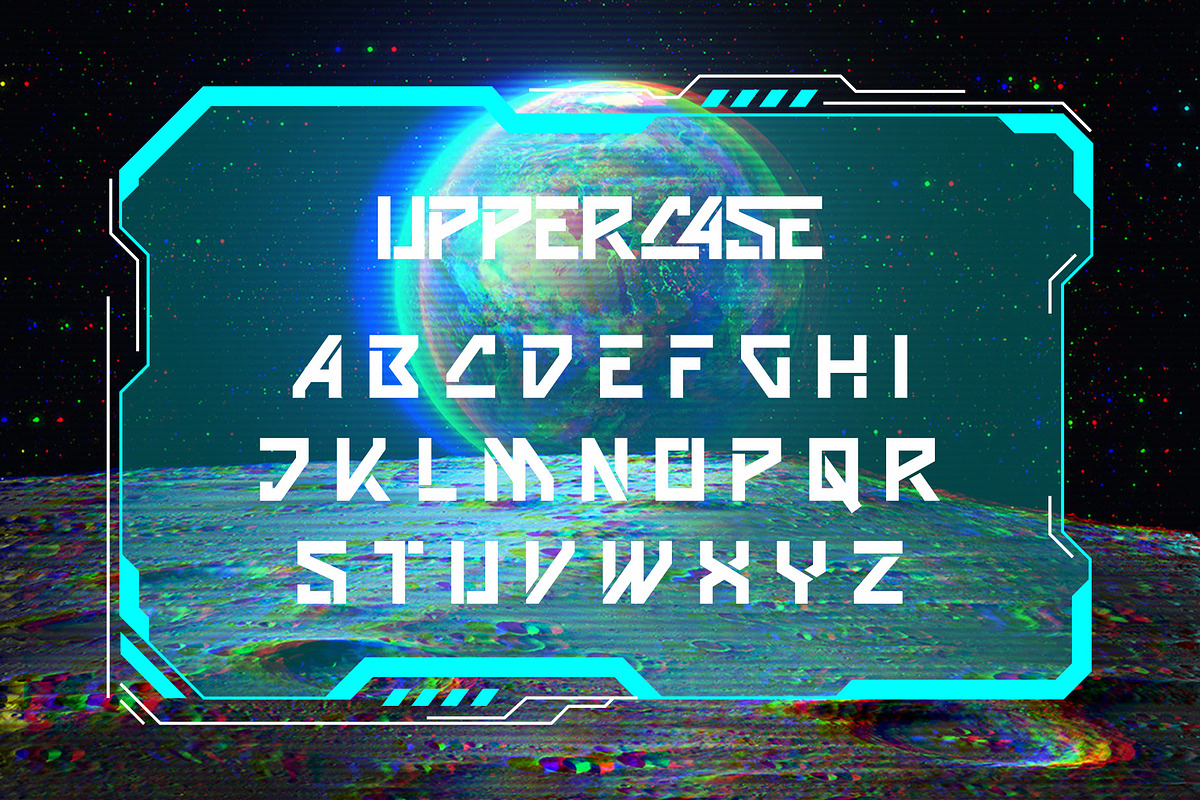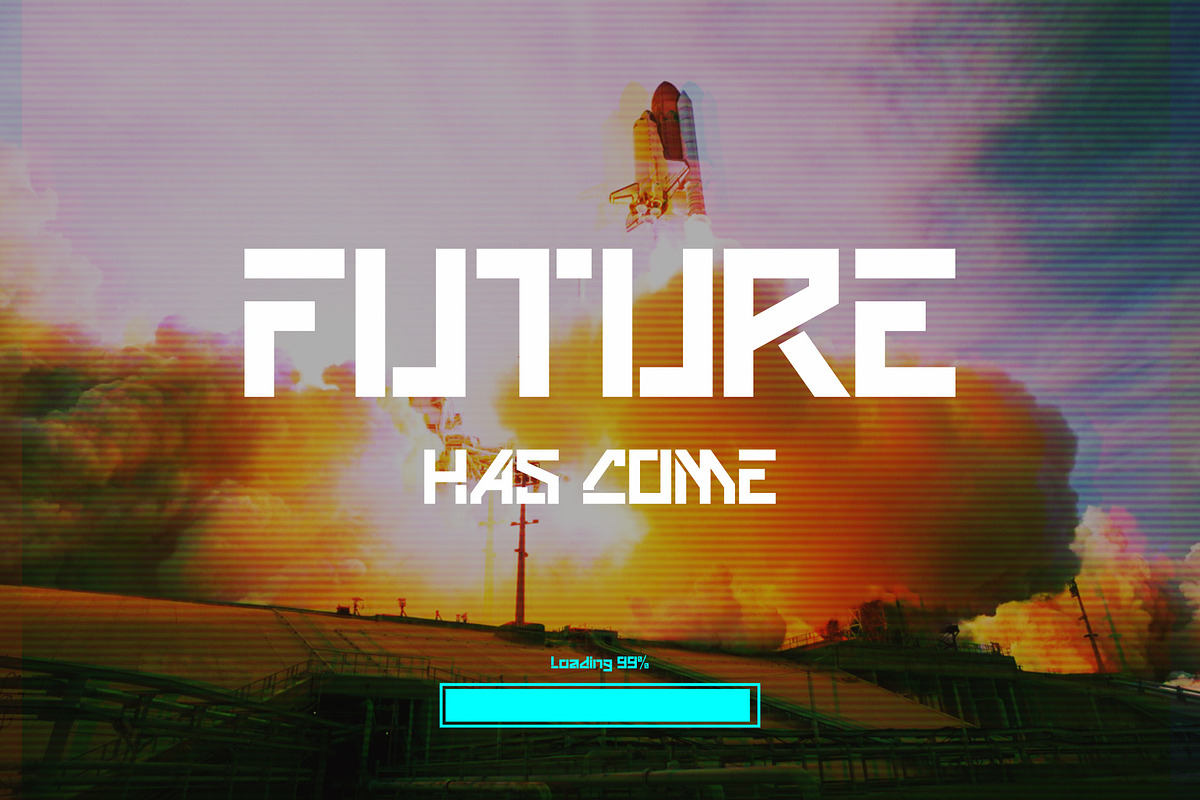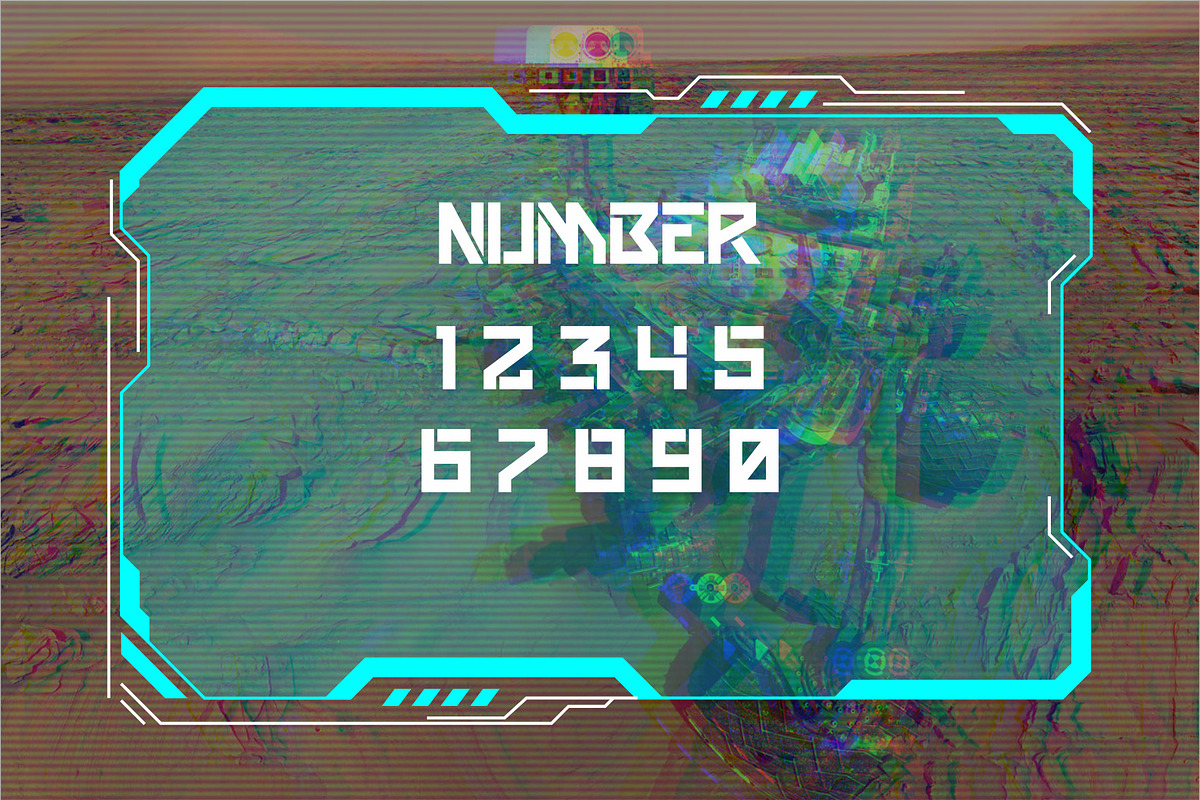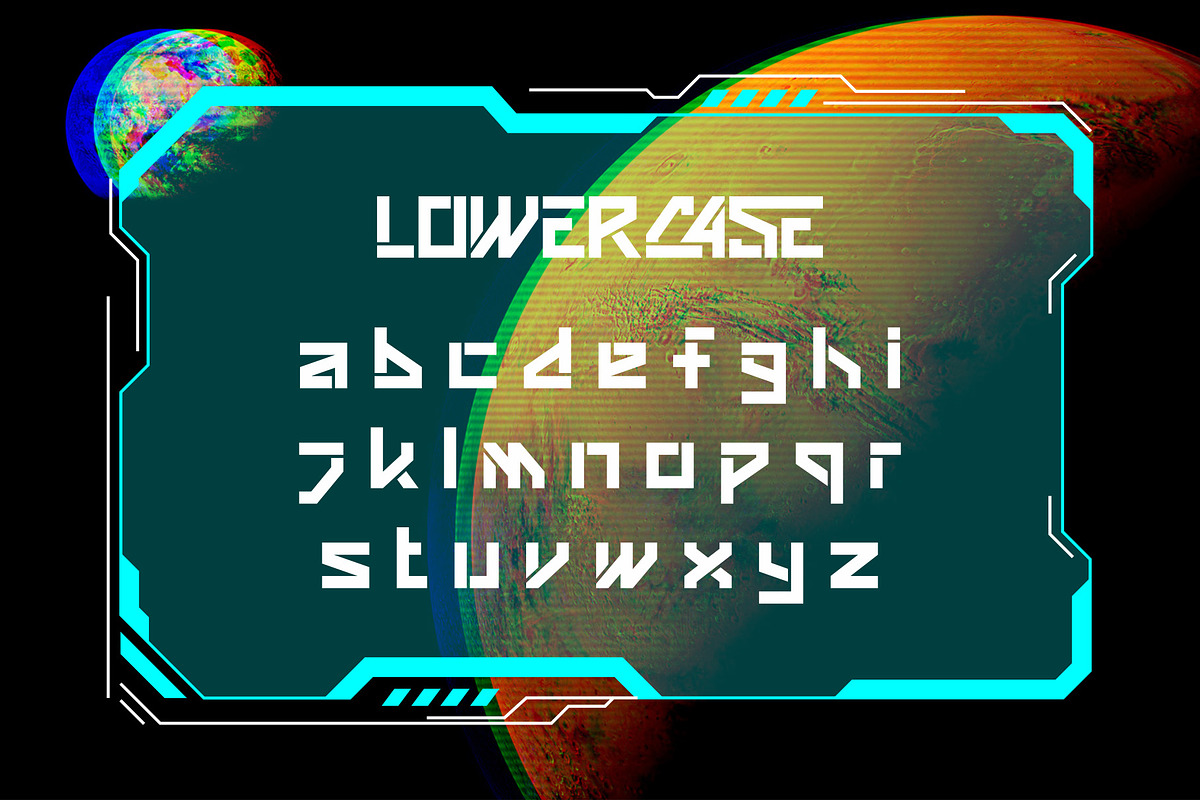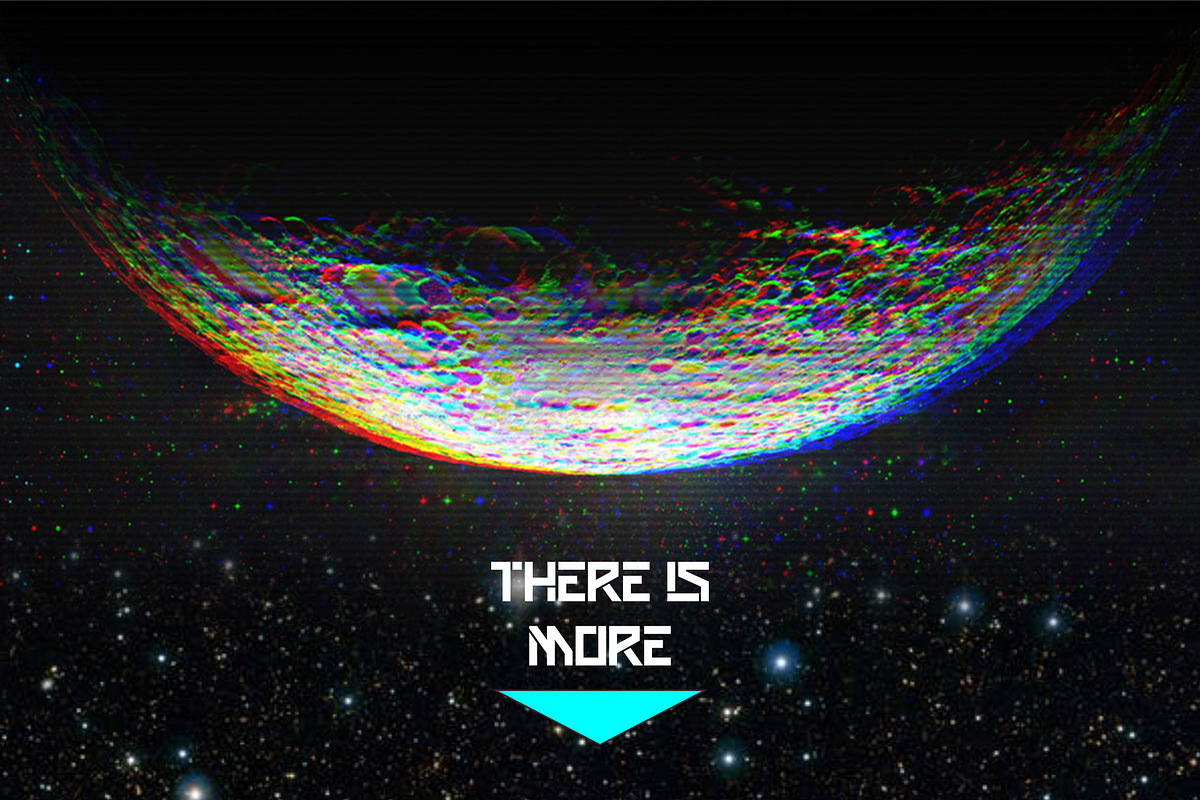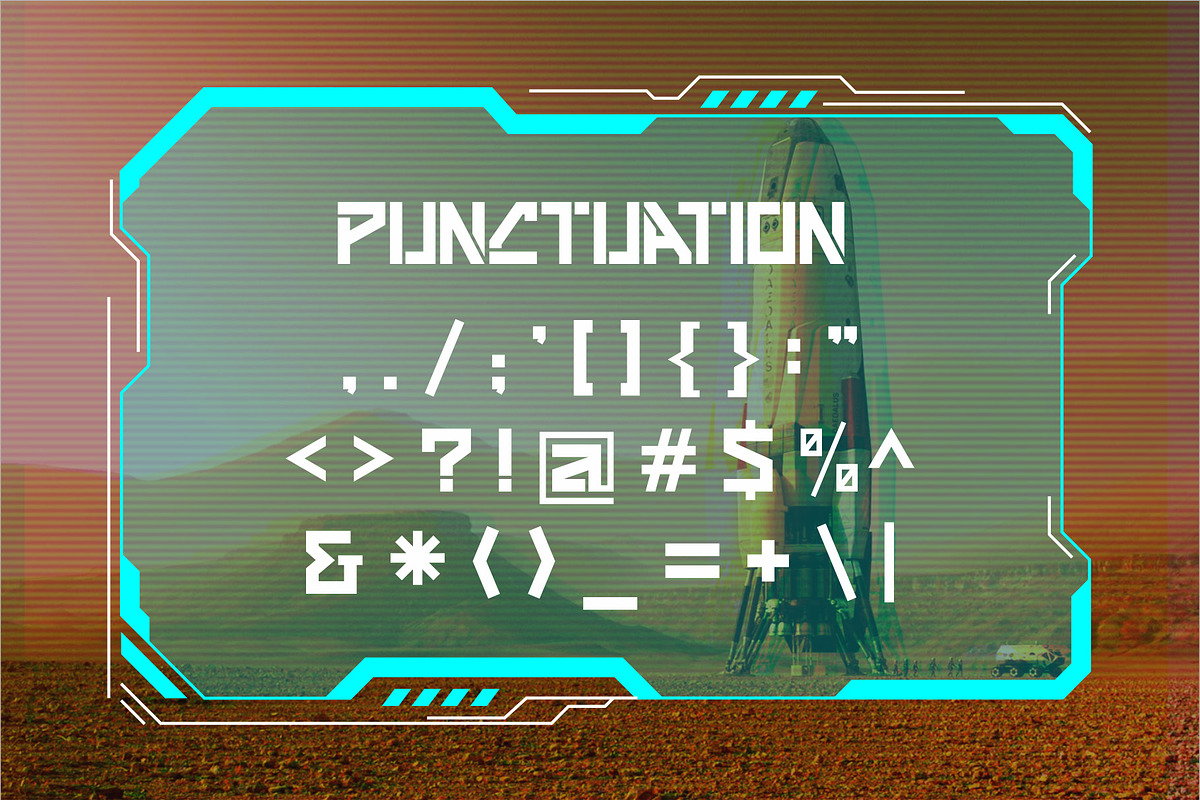
The Savior | Futuristic Font
Introducing THE SAVIOR! Is a futuristic condensed font inspired from the universe and sci-fi movies. Have a clean ruler and straight lines, restrained forms, unique shape and proportions give the face a dynamic, industrial futuristic aura, yet, in a complete paradox in itself. It's a single-weight typeface with a total of 227 characters/glyphs.